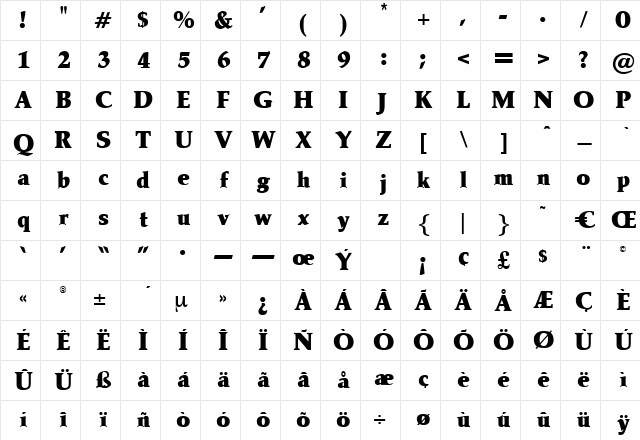
UnionPacificBlack Regular
Complete UnionPacificBlack Regular glyph index. Displaying only characters natively supported by UnionPacificBlack Regular font.
Design Context for UnionPacificBlack
UnionPacificBlack is a composed and adaptable typeface that performs quietly and consistently across a wide range of design contexts.
Pro Tip: Use UnionPacificBlack in both headline and body roles to test its range before committing to a single application.